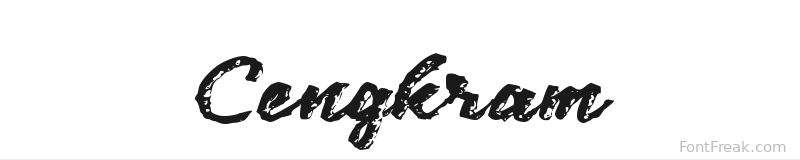
Cengkram
About Cengkram
Cengkram is a captivating script font designed by Wahyu Eka Prasetya, characterized by its elegant and flowing letterforms that evoke a sense of artistic flair. This handwritten style showcases a unique blend of spontaneity and sophistication, making it ideal for a variety of creative applications. The strokes of Cengkram exhibit a moderate weight with a touch of contrast, providing a visually appealing balance that enhances readability while maintaining an artistic essence. The spacing between the characters is thoughtfully crafted, ensuring clarity and flow, which adds to its charm.
This font is particularly well-suited for use cases such as wedding invitations, where its graceful curves can convey romance and elegance. Additionally, it shines in the realm of branding for artisanal products, helping small businesses create a distinctive identity that resonates with their target audience. Cengkram is also an excellent choice for restaurant menus, where it can elevate the dining experience by adding a personal touch to the presentation. Creative projects like greeting cards or social media graphics will benefit from its artistic flair, making them more engaging and visually striking.
What truly sets Cengkram apart is its ability to blend artistry with practicality. This font not only serves aesthetic purposes but also communicates a sense of warmth and individuality, making it a standout choice for anyone looking to add a personal touch to their designs. For those interested in exploring this unique typeface, the Cengkram font free download is readily available, inviting creativity and innovation into your projects.